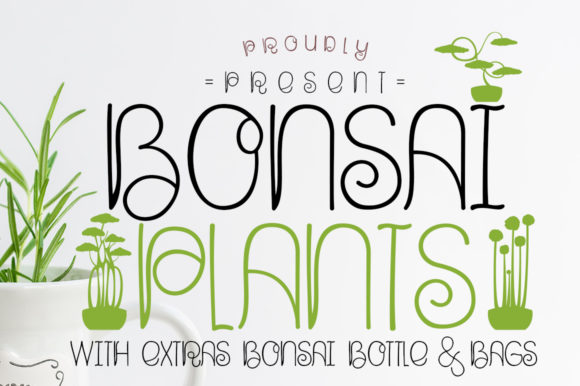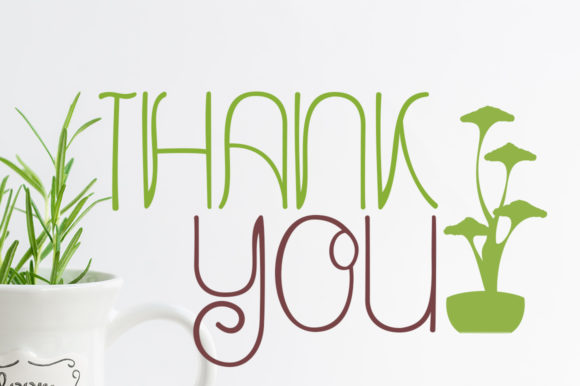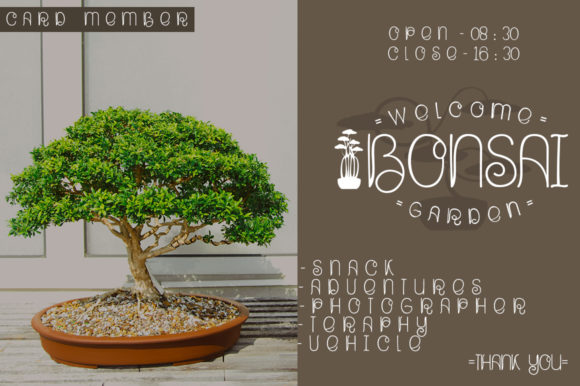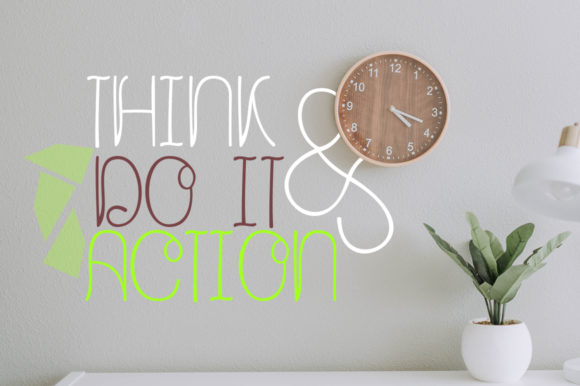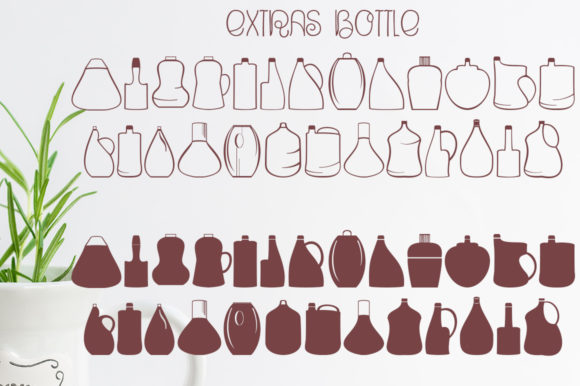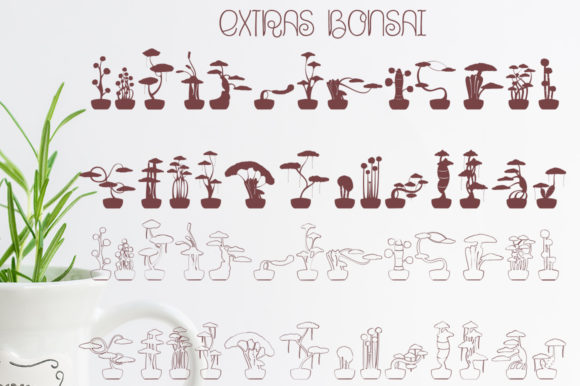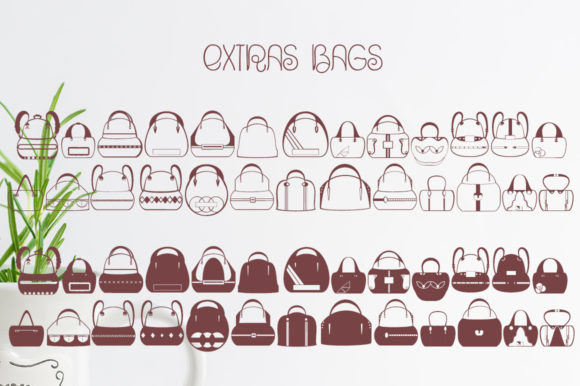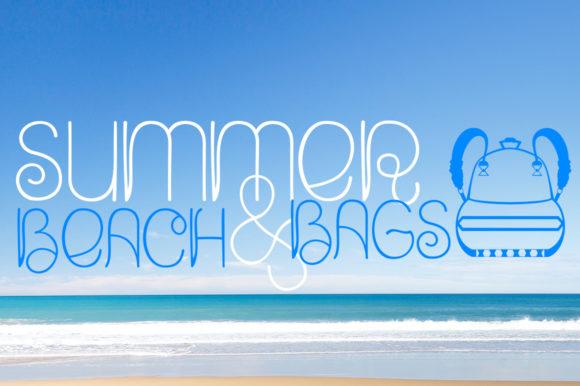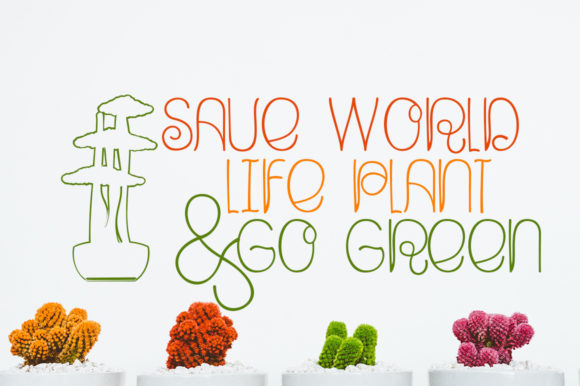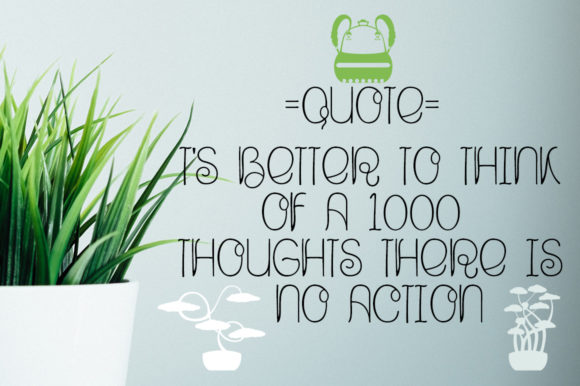
Bonsai Plants Font
About Bonsai Plants Font
Bonsai Plants is a beautiful handwritten font. It brings unique and cute bonsai and bags-themed extras that will take your crafting projects to the next level!